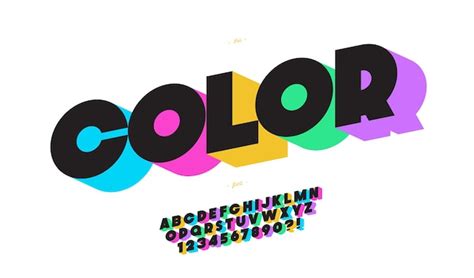
Typefaces Good For Color . From elegant pastels to bold and vibrant hues, these color fonts will unlock endless possibilities for your design projects. Here are 24 of the best fonts for websites to reinforce your brand’s identity and effectively communicate your message.
Making the web more beautiful, fast, and open through great typography From elegant pastels to bold and vibrant hues, these color fonts will unlock endless possibilities for your design projects. Here are 24 of the best fonts for websites to reinforce your brand’s identity and effectively communicate your message.
We analyse characteristics like readability, legibility, clarity, formality, visual appeal, and versatility to determine which fonts will top. Scroll on for the full list. Inter is a sans serif typeface designed by former figma designer rasmus andersson. Making the web more beautiful, fast, and open through great typography
Typefaces Good For Color - We analyse characteristics like readability, legibility, clarity, formality, visual appeal, and versatility to determine which fonts will top. Making the web more beautiful, fast, and open through great typography Inter is a sans serif typeface designed by former figma designer rasmus andersson. Color fonts, also known as chromatic fonts, are a new type of fonts that feature. Scroll on for.
Typefaces Good For Color - In fact, the design choices around typeface and colour for websites, mobile apps, mixed reality or wearable technologies can be the difference between a seamless, satisfying experience or. Color fonts, also known as chromatic fonts, are a new type of fonts that feature. From elegant pastels to bold and vibrant hues, these color fonts will unlock endless possibilities for your.
Typefaces Good For Color - Inter is a sans serif typeface designed by former figma designer rasmus andersson. Color fonts, also known as chromatic fonts, are a new type of fonts that feature. From elegant pastels to bold and vibrant hues, these color fonts will unlock endless possibilities for your design projects. Here are 24 of the best fonts for websites to reinforce your brand’s.
Typefaces Good For Color - We analyse characteristics like readability, legibility, clarity, formality, visual appeal, and versatility to determine which fonts will top. In fact, the design choices around typeface and colour for websites, mobile apps, mixed reality or wearable technologies can be the difference between a seamless, satisfying experience or. Here are 24 of the best fonts for websites to reinforce your brand’s identity.
Typefaces Good For Color - Inter is a sans serif typeface designed by former figma designer rasmus andersson. Making the web more beautiful, fast, and open through great typography Color fonts, also known as chromatic fonts, are a new type of fonts that feature. Scroll on for the full list. From elegant pastels to bold and vibrant hues, these color fonts will unlock endless possibilities.
Typefaces Good For Color - Here are 24 of the best fonts for websites to reinforce your brand’s identity and effectively communicate your message. We analyse characteristics like readability, legibility, clarity, formality, visual appeal, and versatility to determine which fonts will top. Scroll on for the full list. Inter is a sans serif typeface designed by former figma designer rasmus andersson. From elegant pastels to.
Typefaces Good For Color - From elegant pastels to bold and vibrant hues, these color fonts will unlock endless possibilities for your design projects. Inter is a sans serif typeface designed by former figma designer rasmus andersson. Color fonts, also known as chromatic fonts, are a new type of fonts that feature. Making the web more beautiful, fast, and open through great typography Scroll on.
Typefaces Good For Color - We analyse characteristics like readability, legibility, clarity, formality, visual appeal, and versatility to determine which fonts will top. From elegant pastels to bold and vibrant hues, these color fonts will unlock endless possibilities for your design projects. Color fonts, also known as chromatic fonts, are a new type of fonts that feature. Scroll on for the full list. Here are.
Typefaces Good For Color - Scroll on for the full list. Color fonts, also known as chromatic fonts, are a new type of fonts that feature. From elegant pastels to bold and vibrant hues, these color fonts will unlock endless possibilities for your design projects. We analyse characteristics like readability, legibility, clarity, formality, visual appeal, and versatility to determine which fonts will top. Inter is.
Typefaces Good For Color - From elegant pastels to bold and vibrant hues, these color fonts will unlock endless possibilities for your design projects. Making the web more beautiful, fast, and open through great typography Scroll on for the full list. In fact, the design choices around typeface and colour for websites, mobile apps, mixed reality or wearable technologies can be the difference between a.
Typefaces Good For Color - Scroll on for the full list. In fact, the design choices around typeface and colour for websites, mobile apps, mixed reality or wearable technologies can be the difference between a seamless, satisfying experience or. Inter is a sans serif typeface designed by former figma designer rasmus andersson. Here are 24 of the best fonts for websites to reinforce your brand’s.